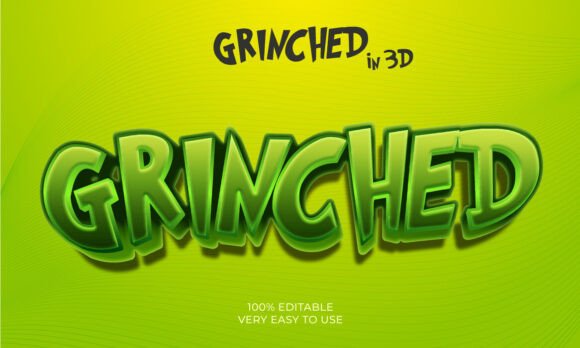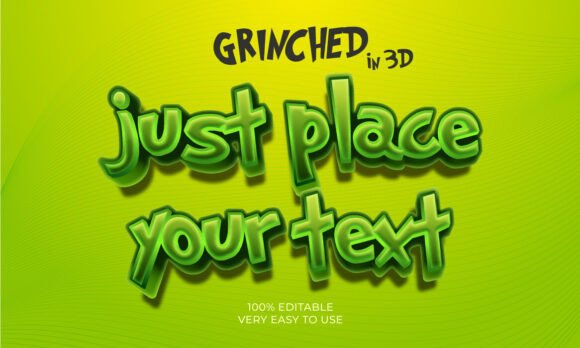
Grinch Font in 3D, Christmas Alphabet
Introducing the Grinch Font in 3D Style, a collection of cut files fonts, specifically designed for use with the Silhouette Cameo.
The Grinch Font brings a whimsical 3D aesthetic to your creations, perfect for enriching designs on T-Shirts, Mugs, Bags, Posters, Greeting cards, and many more.
Offering versatility and flexibility for myriad design needs.